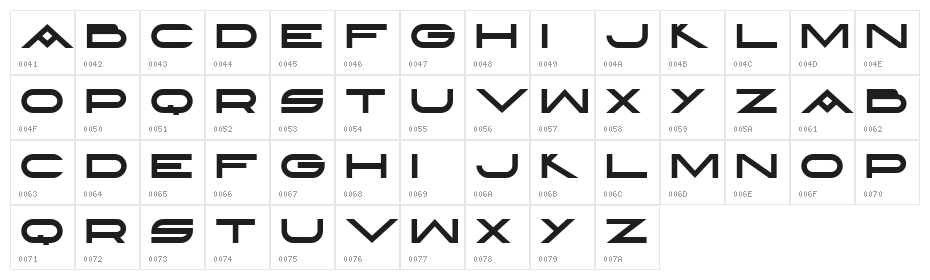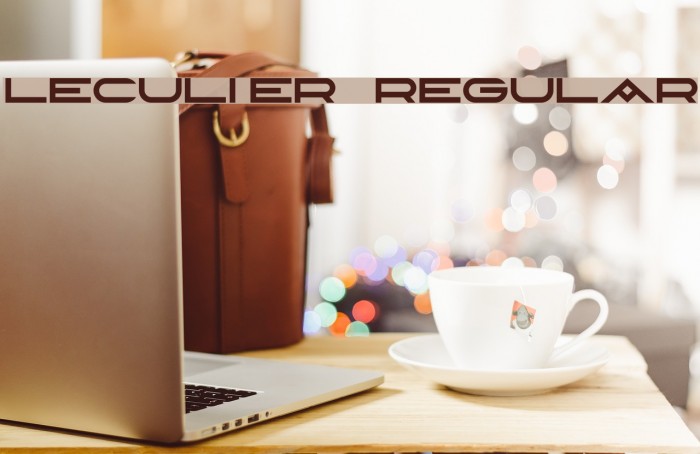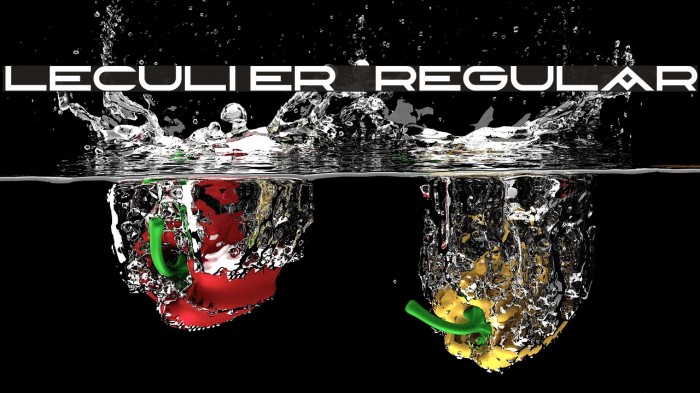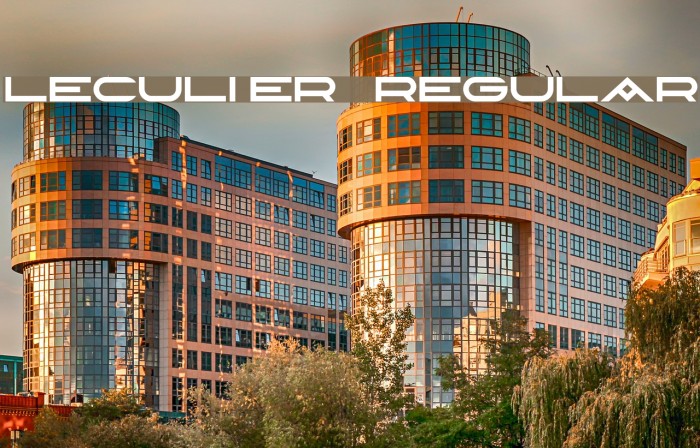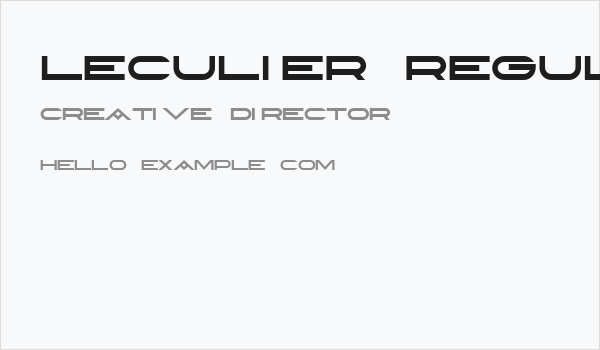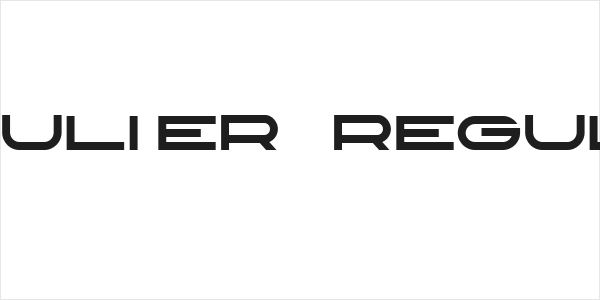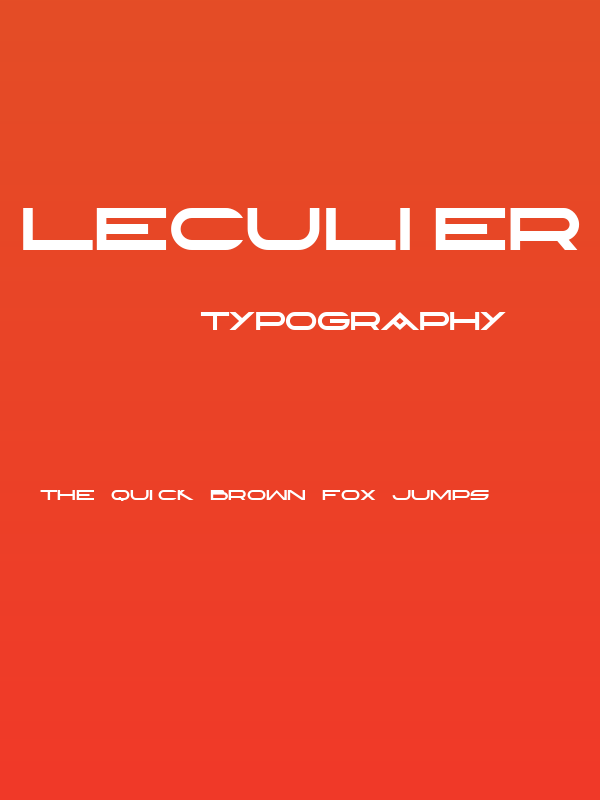
Leculier Regular Font
Leculier Regular Description
This font features a bold and futuristic design with geometric elements. The characters are constructed with sharp angles and clean lines, giving it a modern and tech-inspired appearance. The uppercase letters are particularly striking, with unique cuts and shapes that add a distinctive flair. The lowercase letters maintain a consistent style, ensuring readability while retaining the font's unique characteristics. The numbers and special characters are designed to match the overall aesthetic, making this font suitable for a variety of creative projects.
| Proposed Projects | Ideal for technology branding, sci-fi posters, video game titles, and modern advertising. |